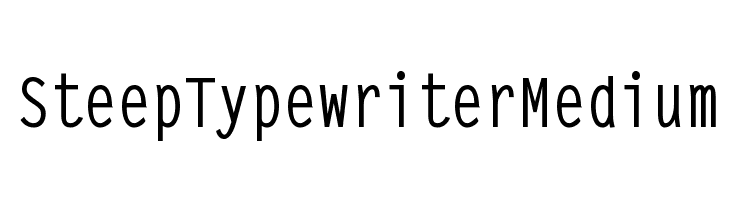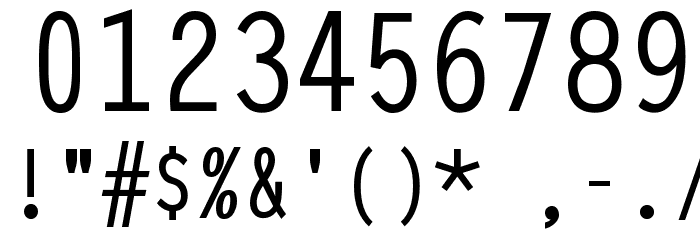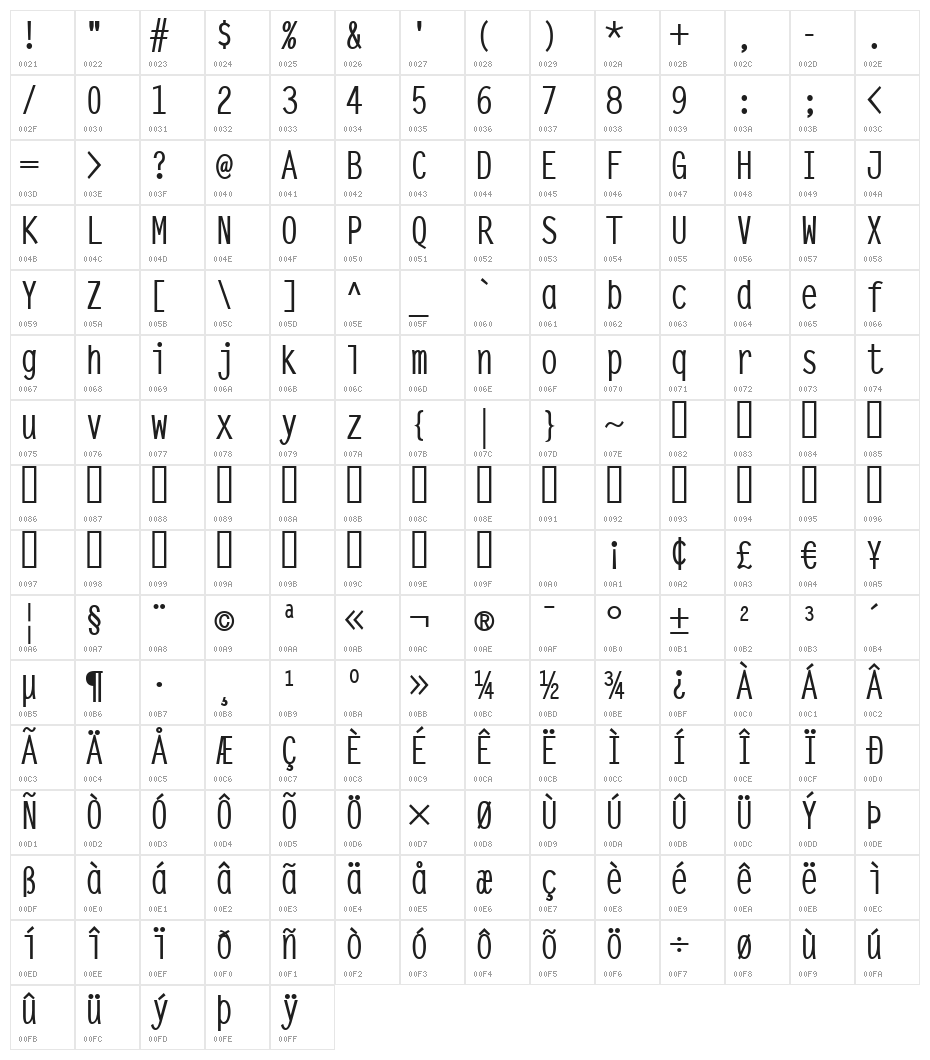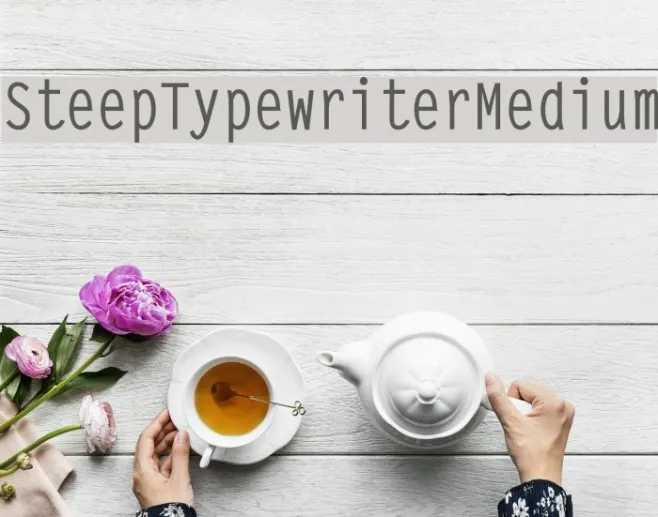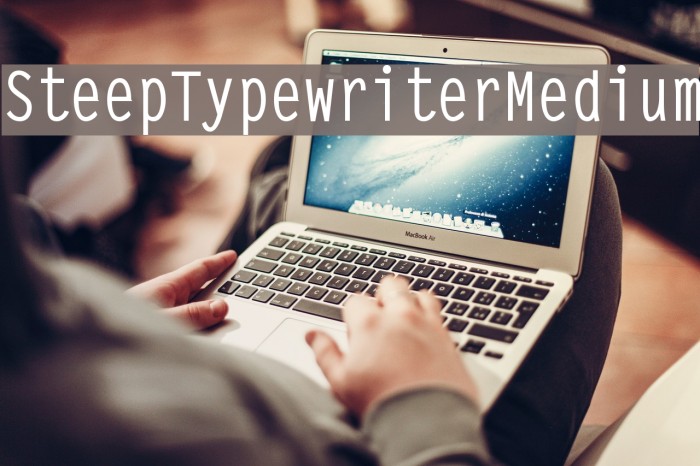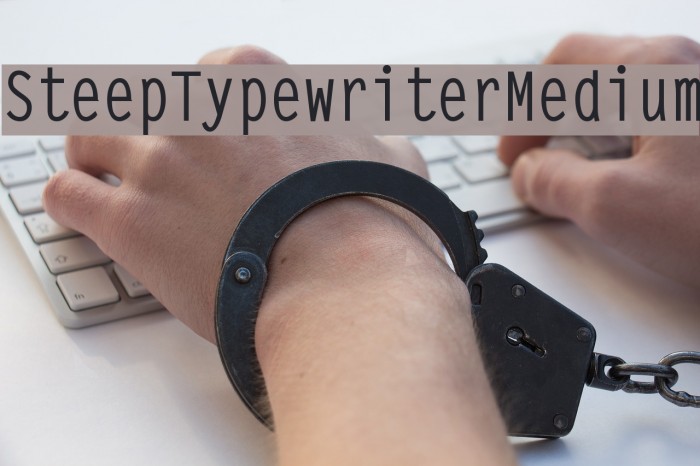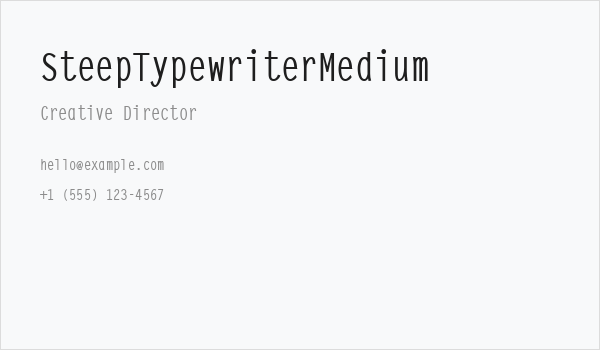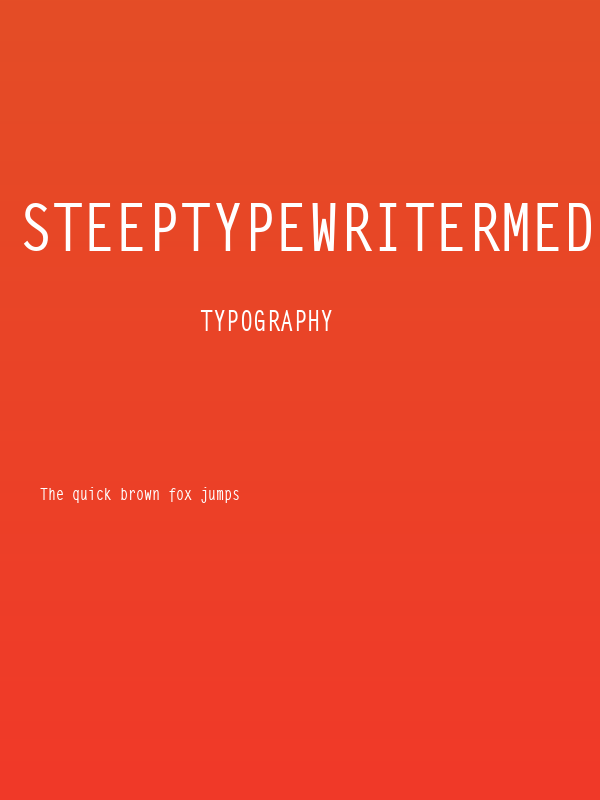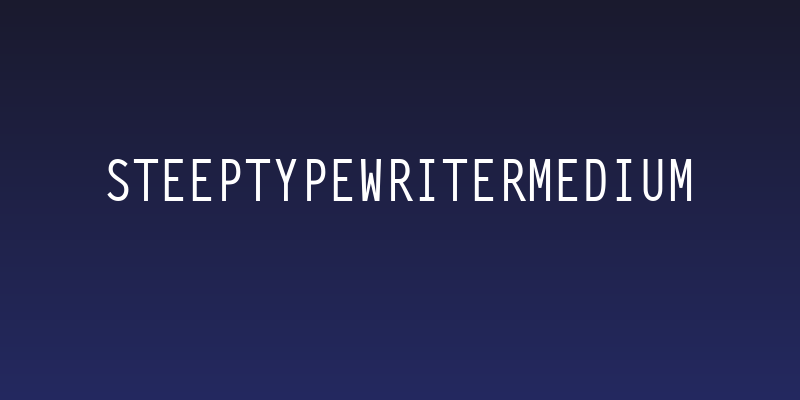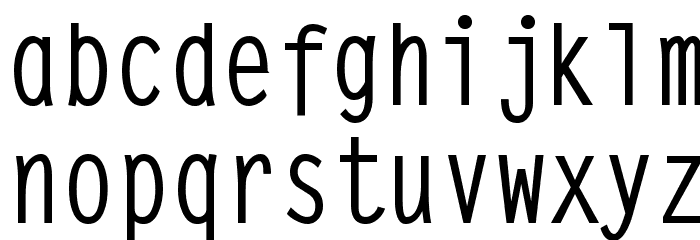
SteepTypewriterMedium Font
SteepTypewriterMedium Description
This typeface features a monospaced design reminiscent of classic typewriter fonts. Each character is evenly spaced, providing a uniform and mechanical appearance. The letters are clean and straightforward, with a slight curvature that adds a touch of modernity to the traditional typewriter aesthetic. The uppercase letters are bold and prominent, while the lowercase letters maintain a consistent height, enhancing readability. The numerals are clear and distinct, making them suitable for data presentation. Special characters are well-defined, ensuring versatility in various applications. Overall, this font balances nostalgia with contemporary design elements, making it suitable for both retro and modern projects.
| Use Case | Coding, Technical documents, Retro designs |
| Proposed Projects | Ideal for coding environments, retro-themed designs, typewriter art, and technical documents. |